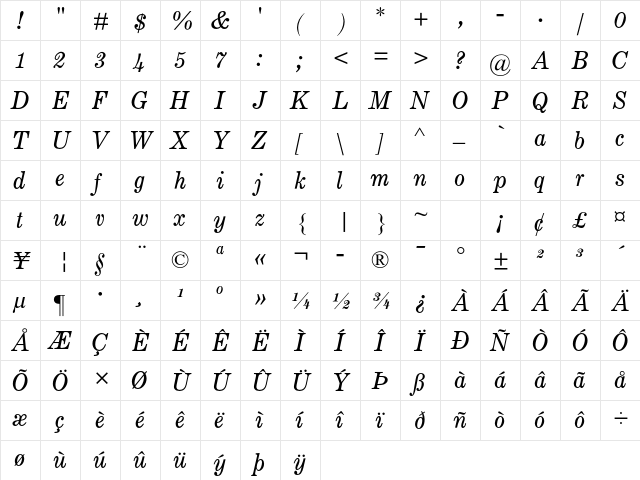
Century Std MT Italic
Design Context for Century Std MT Typeface
Century Std MT offers clean, dependable letterforms without strong stylistic allegiance, making it a practical choice for designers who need flexibility. Its italic angle brings a sense of urgency and motion to the letterforms.
Pro Tip: Try Century Std MT for annotation and caption copy alongside an upright companion — the contrast in angle creates a dynamic but ordered typographic system.